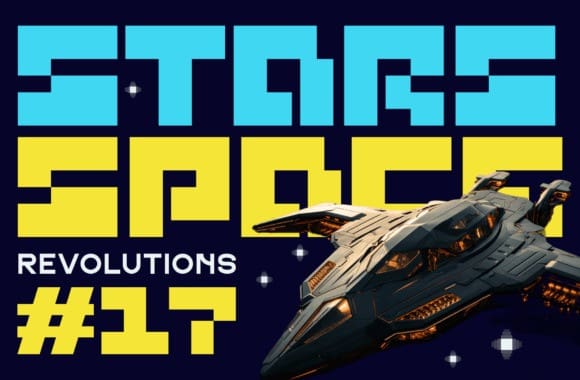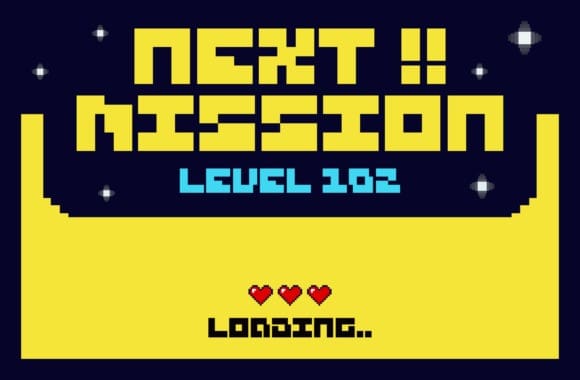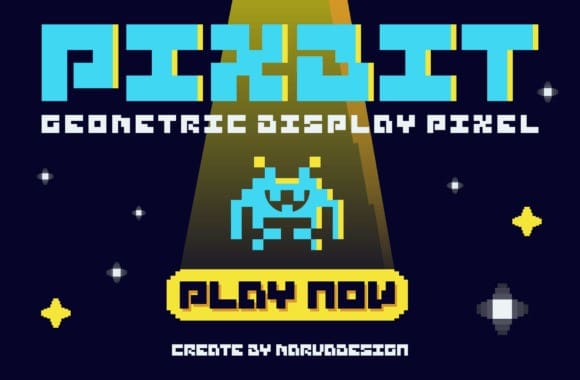
Pixbit Font
Pixbit Font is a fun, pixel geometric display font reminiscent of retro video games. Its blocky yet playful design adds a nostalgic touch to any project. Perfect for titles, headers, and digital artwork, Pixbit brings a quirky charm and a hint of vintage flair to your designs.